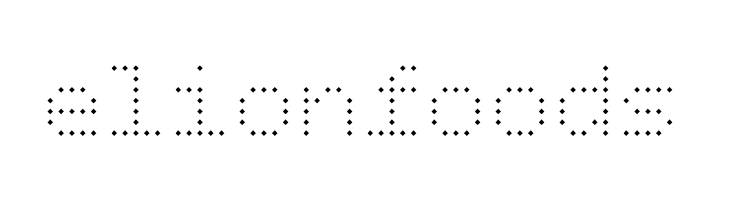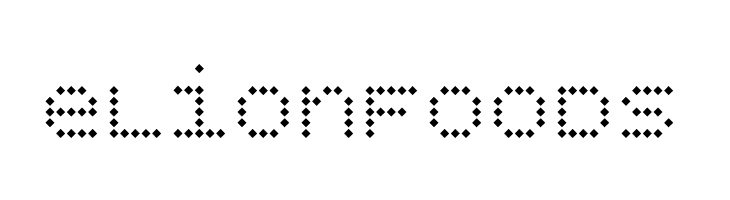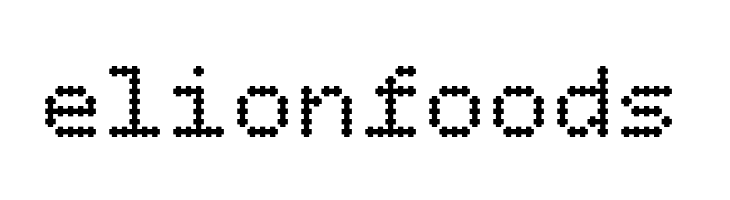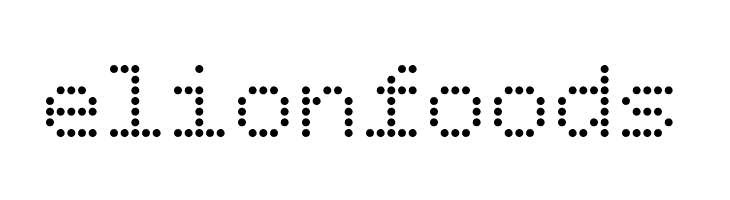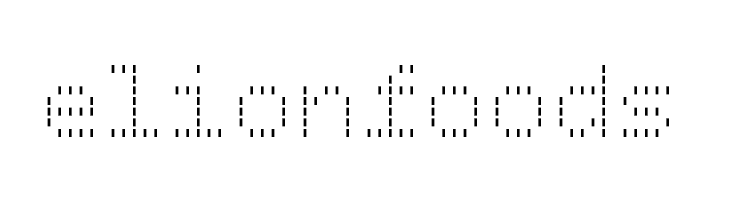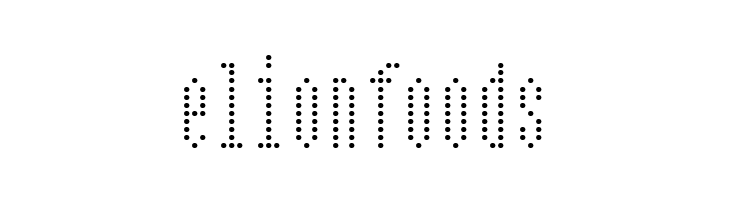
A light, dotted font with characters formed by diamond-shaped dots, offering a modern and decorative style.
A modern, dot-based font with a geometric, pixelated style.
A pixelated font with square dots, offering a modern, digital aesthetic.
A bold, geometric font made of diamond-shaped dots, offering a modern and artistic style.
A dot-based, pixelated font with a retro digital style.
A modern, dotted font with a playful and digital aesthetic.
A modern, dot-based font with a digital, pixelated style.
A dotted, digital-style font with a retro aesthetic.